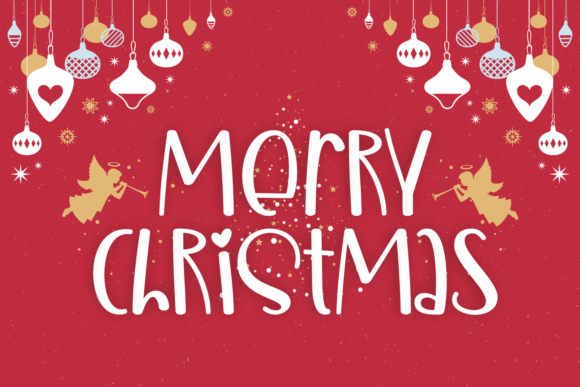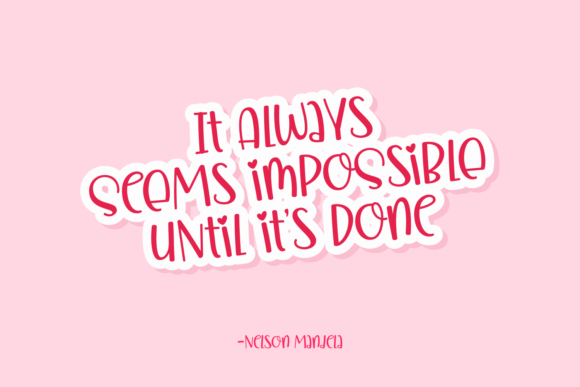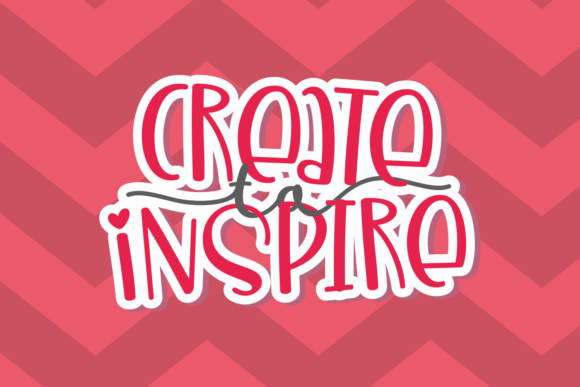
Introducing Funnygo Font: The Perfect Choice for Whimsical Designs
Are you a designer or crafter looking for a font that can add a touch of playfulness and quirkiness to your projects? Look no further than Funnygo Font! This adorable display font is specifically designed for children-themed designs and is sure to bring a smile to anyone’s face.
What Makes Funnygo Font So Special?
Funnygo Font is a one-of-a-kind typeface that boasts a unique and endearing personality. Its cute and quirky design makes it perfect for a wide range of applications, from kids’ party invitations and posters to children’s book titles and craft projects.
One of the standout features of Funnygo Font is its ability to evoke a sense of fun and playfulness. The font’s irregular shapes and bouncy curves give it a lively and energetic feel that’s sure to capture the attention of your audience.
Why Funnygo Font is Perfect for Children-Themed Designs
When it comes to designing for children, it’s essential to create a visual identity that’s both engaging and appealing. Funnygo Font is specifically designed with this in mind, making it an excellent choice for any project aimed at kids.
The font’s playful design and whimsical feel make it perfect for:
• Kids’ party invitations and decorations
• Children’s book titles and illustrations
• Kids’ clothing and accessory designs
• Educational materials and worksheets
• Craft projects and DIY tutorials
Tips for Using Funnygo Font Effectively
To get the most out of Funnygo Font, here are some expert tips to keep in mind:
• Combine with bright colors: Funnygo Font is designed to be paired with bright, bold colors that enhance its playful personality. Try combining it with colors like pink, blue, yellow, and green to create a visually appealing design.
• Use it sparingly: While Funnygo Font is perfect for headlines and titles, it’s best to use it sparingly to avoid overwhelming your design. Balance it with a simpler font for body text to create visual harmony.
• Experiment with font sizes: Funnygo Font looks great in a variety of font sizes, from large display fonts to smaller, more intricate designs. Experiment with different sizes to find the perfect fit for your project.
What You Can Create with Funnygo Font
The possibilities are endless when it comes to creating with Funnygo Font! Here are some inspiring ideas to get you started:
• Create a custom kids’ party invitation with Funnygo Font as the main attraction.
• Design a set of fun and colorful stickers or washi tape using Funnygo Font.
• Develop a comprehensive brand identity for a children’s product or service featuring Funnygo Font.
• Make a whimsical children’s book title or cover with Funnygo Font.
Funnygo Font is a one-of-a-kind display font that’s sure to bring a touch of playfulness and quirkiness to your designs. With its cute and quirky design, it’s perfect for children-themed projects, especially when combined with bright colors. Whether you’re a designer, crafter, or DIY enthusiast, Funnygo Font is an excellent choice for adding a dash of fun and personality to your work.